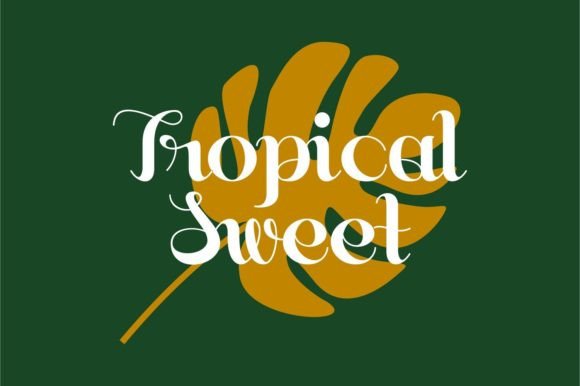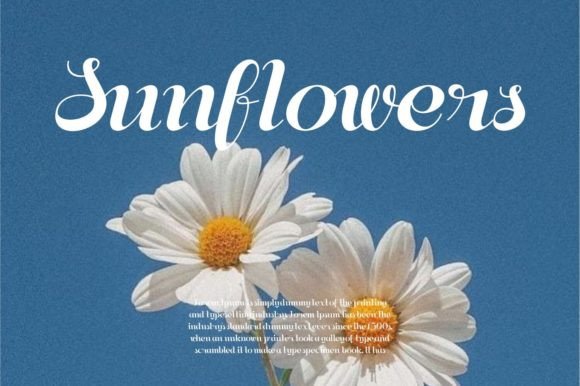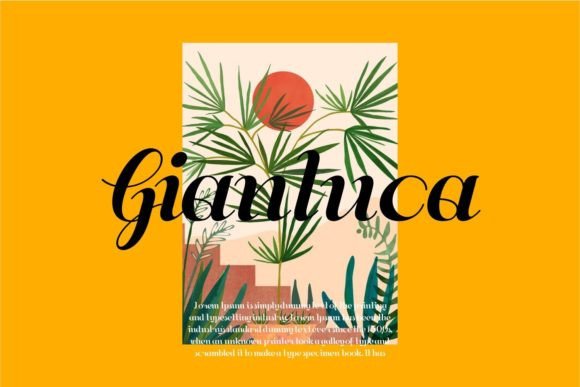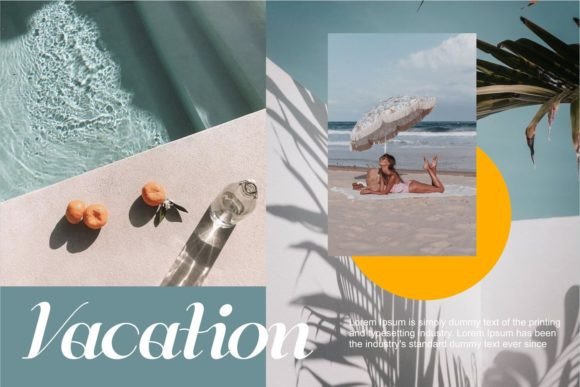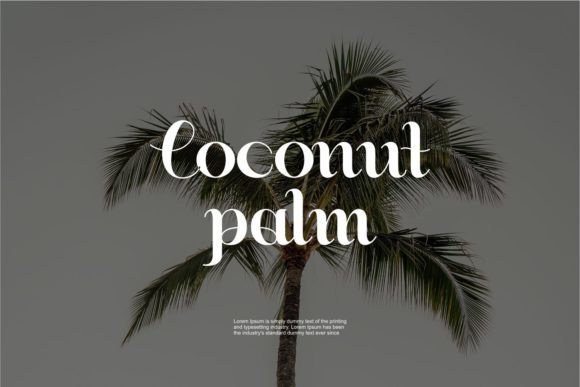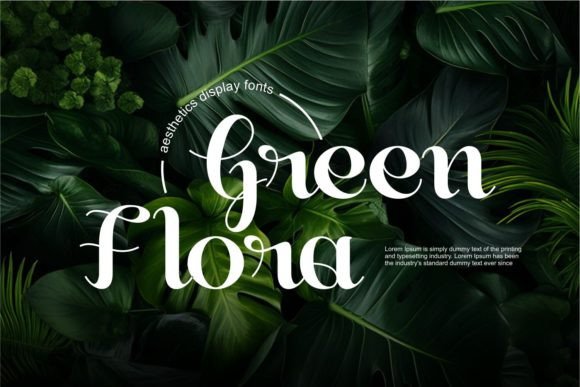
Aesthetica Font: Unveiling the Tropical Charm of Valencia
In the realm of typography, fonts are more than just a means of communication; they are an expression of art, culture, and identity. Among the myriad of fonts available, each with its unique story and inspiration, the Aesthetica Font, also known as the Valencian font, stands out. This exquisite font draws its inspiration from the beautiful city of Valencia, located on the east coast of the Iberian Peninsula, on the banks of the Turia River. The creator of this font took the philosophical essence of Valencia, a city known for its centralizing characteristics within its province, and aimed to make the Valencia font a trendsetter in graphic design, particularly in typography.
The Inspiration Behind Aesthetica Font
The city of Valencia, with its rich history and stunning landscapes, serves as the muse for the Aesthetica Font. By delving into the city’s characteristics, the creator sought to infuse the font with a sense of centralization and unity, reflecting Valencia’s role within its province. This philosophical approach to font design is what sets Aesthetica Font apart, making it not just a typographical element but a narrative of cultural and aesthetic significance.
Characteristics of Aesthetica Font
Aesthetica Font embodies a tropical, flexible, fancy, and fun feel, attributes that are visibly embedded in its design. The visual fields and lines of the font exude a sense of playfulness and elegance, making it perfect for a wide range of applications. At its core, Aesthetica Font is a script font, known for its flexibility and versatility. This characteristic makes it an ideal choice for various design projects, including logo designs, posters, travel brochures, pamphlets, wedding invitations, and presentations for tourist sites.
Versatility of Aesthetica Font
The script font type of Aesthetica Font is one of its most significant advantages, offering immense flexibility in its usage. Designers and crafters can utilize this font in multiple contexts, thanks to its adaptability and aesthetic appeal. Whether it’s creating a logo that requires a touch of elegance and fun or designing a travel brochure that captures the essence of a destination, Aesthetica Font proves to be a valuable asset.
Applications of Aesthetica Font
- Logo Designs: The unique and stylish appearance of Aesthetica Font makes it perfect for logos that need to stand out with a tropical and fancy vibe.
- Posters and Pamphlets: For promotional materials, Aesthetica Font offers a fun and engaging way to communicate messages.
- Travel Brochures: The font’s tropical feel is ideal for travel and tourism-related designs, evoking a sense of adventure and exoticism.
- Wedding Invitations and Valentine Letters: The elegant and fancy nature of Aesthetica Font makes it suitable for special occasions, adding a touch of sophistication and romance.
- Presentations for Tourist Sites: To showcase tourist sites in a visually appealing manner, Aesthetica Font can play a crucial role in highlighting the beauty and charm of destinations.
Aesthetica Font, inspired by the charming city of Valencia, is more than just a font; it’s a statement of style, culture, and creativity. Its tropical, flexible, fancy, and fun characteristics make it a versatile tool for designers and crafters looking to add a unique touch to their projects. Whether you’re working on a logo, a poster, a wedding invitation, or a travel brochure, Aesthetica Font offers the perfect blend of aesthetic appeal and readability. As the world of graphic design continues to evolve, fonts like Aesthetica Font stand out for their ability to convey emotions, tell stories, and create lasting impressions.
Incorporating Aesthetica Font into your design projects can significantly enhance their visual appeal and emotional impact. With its roots in the beautiful city of Valencia and its aspirations to centralize trends in graphic design, Aesthetica Font is poised to make a mark in the world of typography. Designers and crafters, get ready to explore new horizons of creativity with Aesthetica Font.